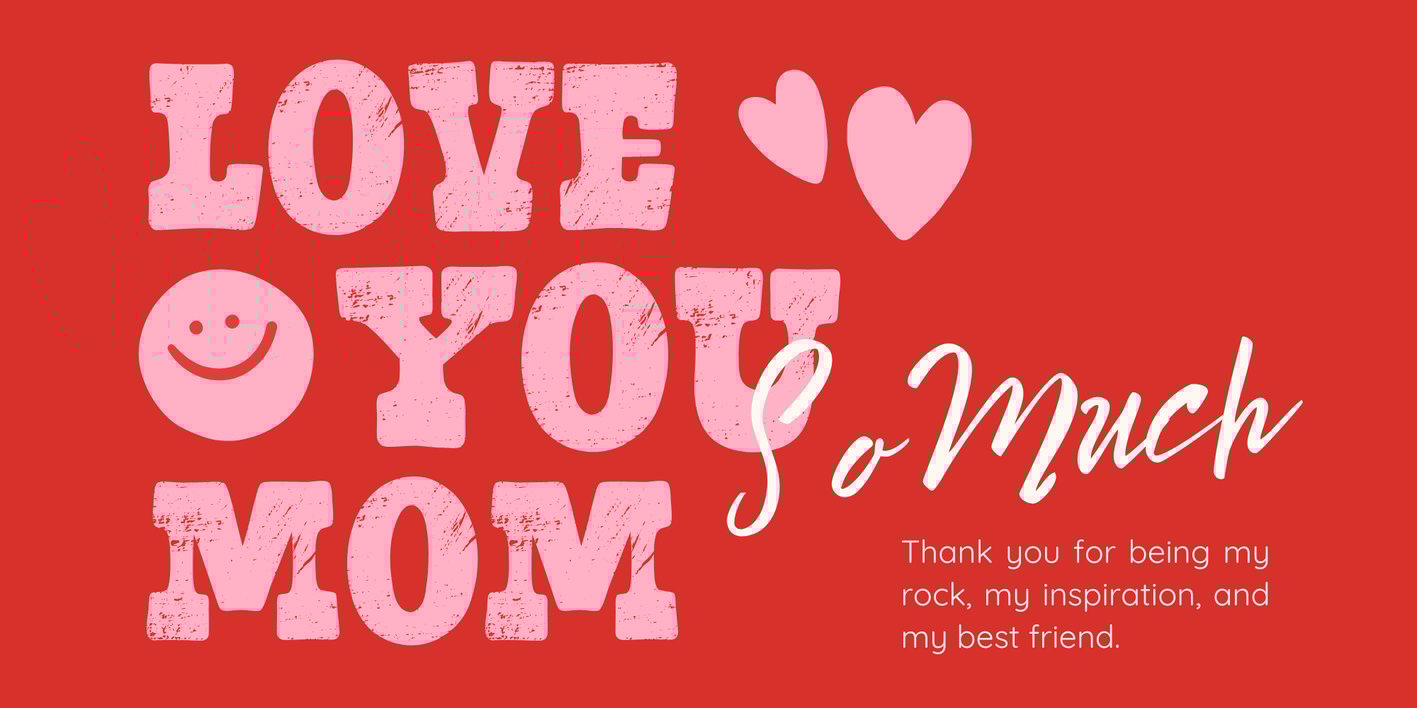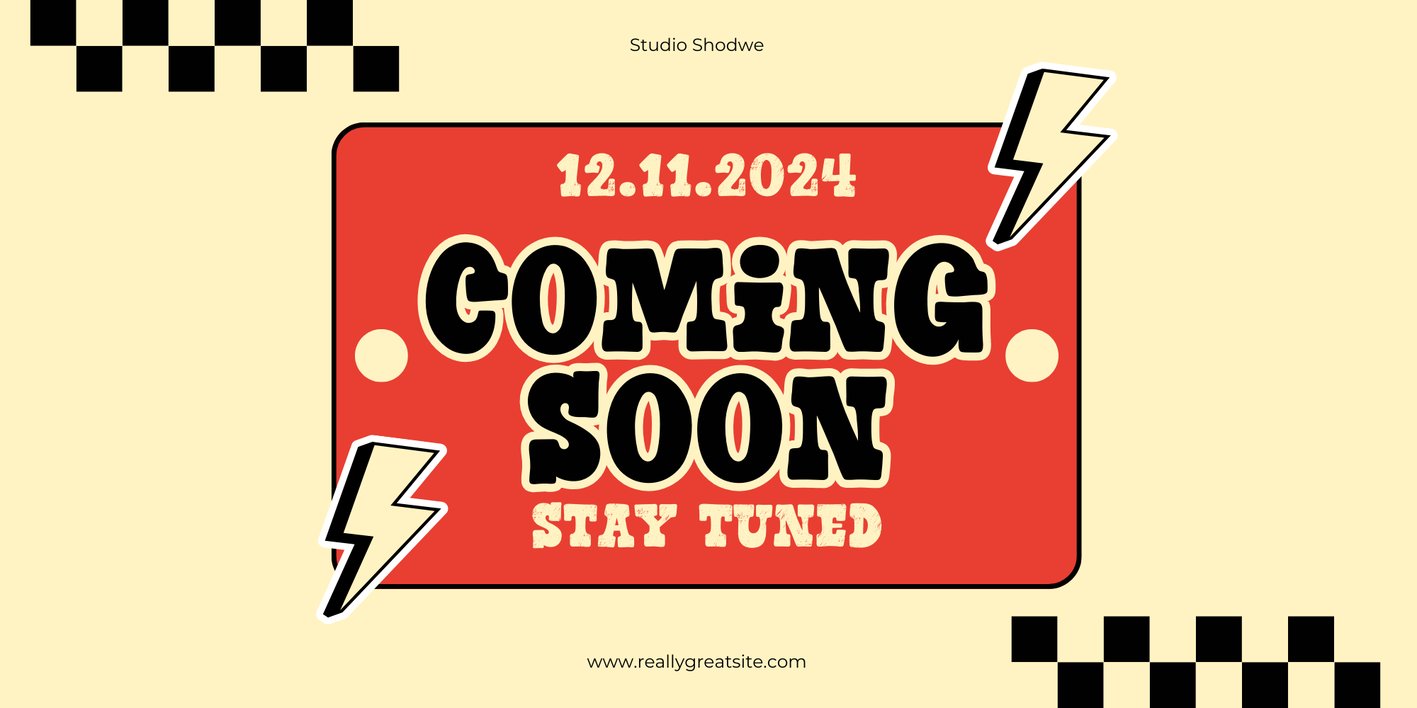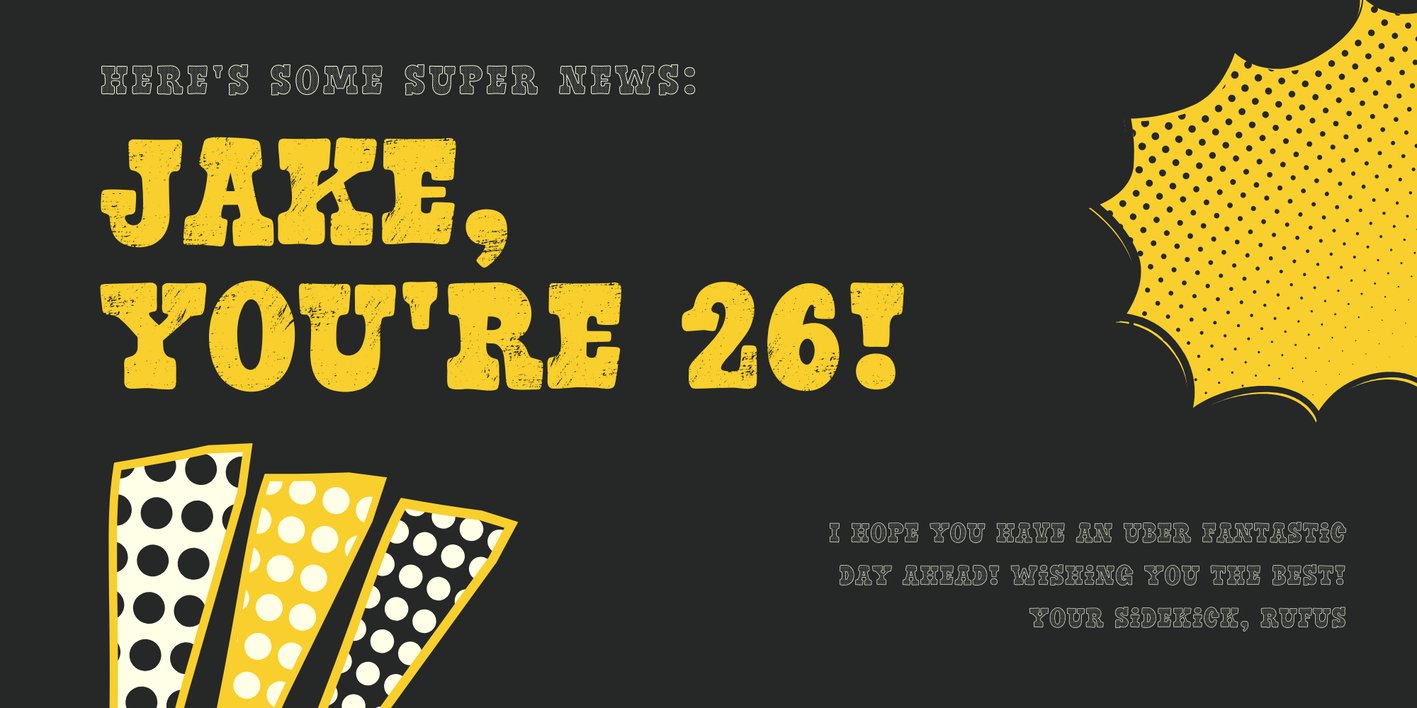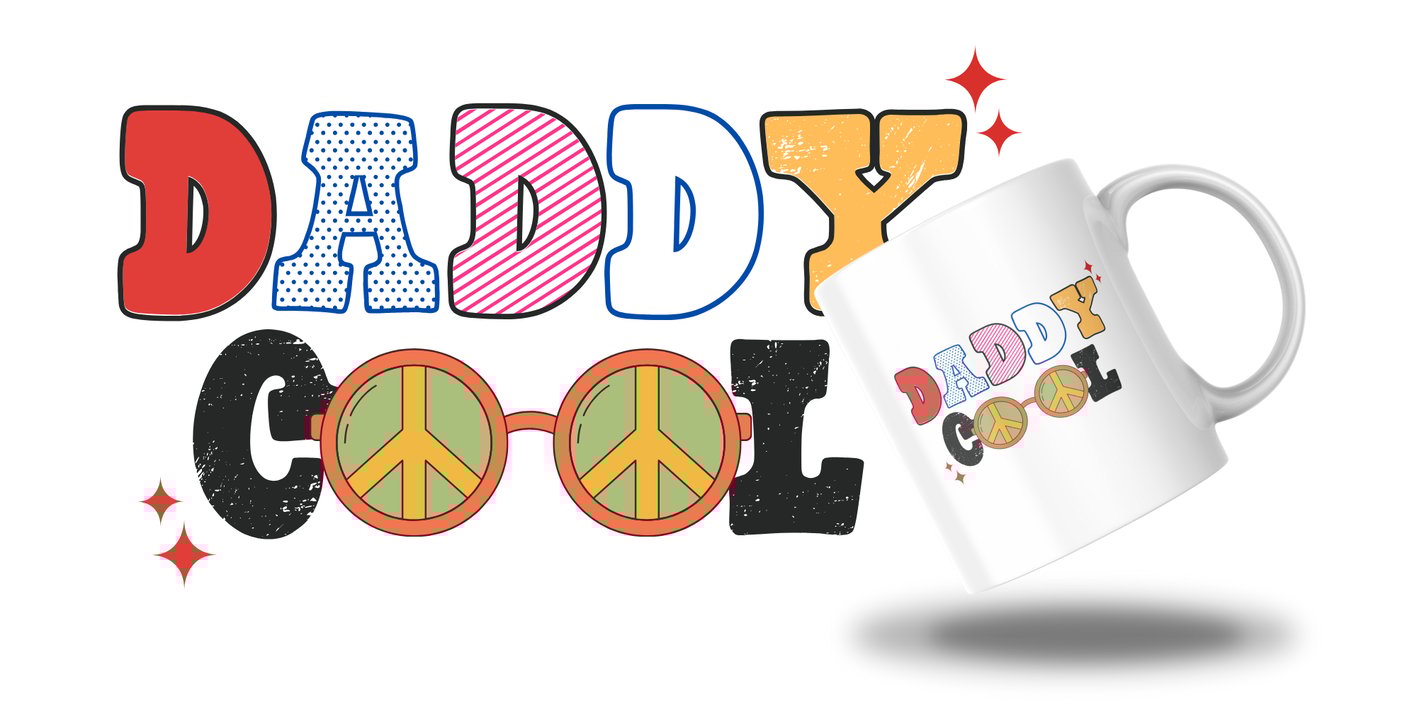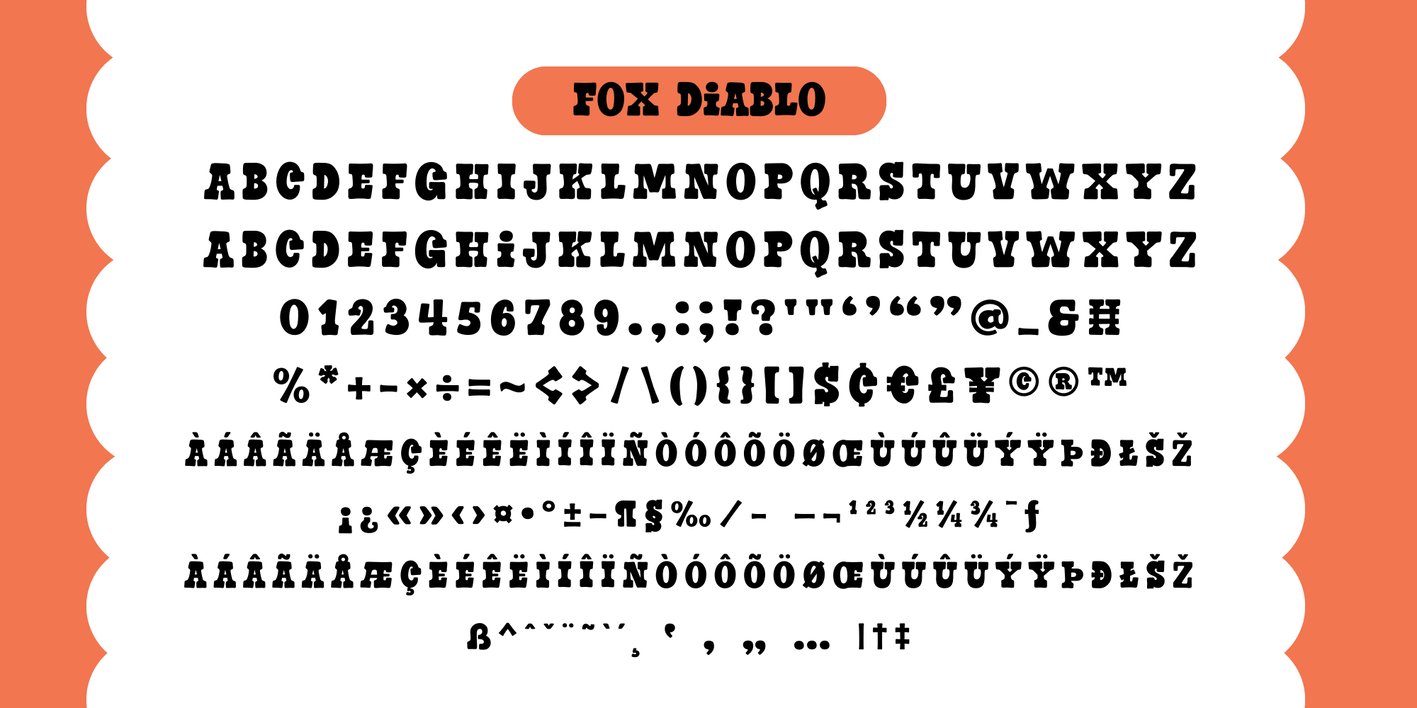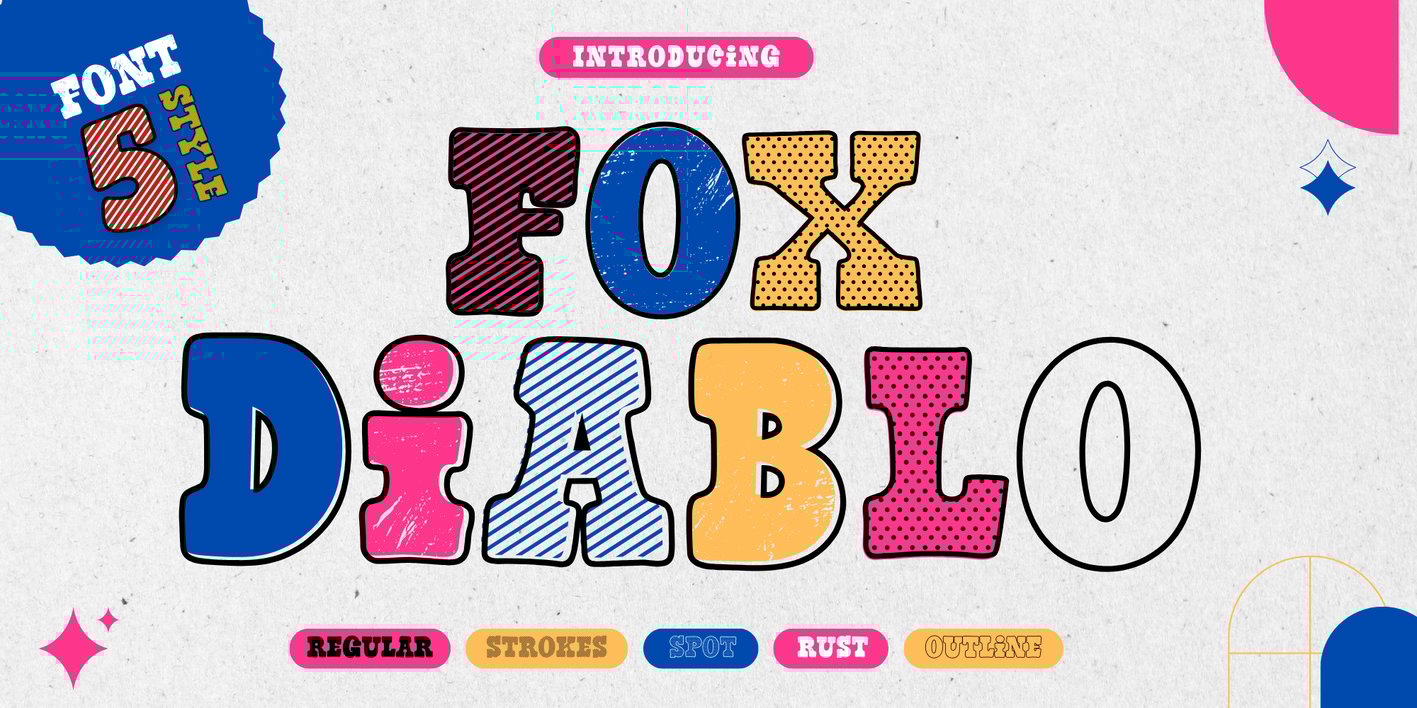
Fox Diablo is a 5 style font that cool and playful display font that adds a captivating and energetic touch to your designs. Perfect for use in publications, menus, logos, business cards, or even printed on t-shirts, these fonts exude uniqueness. Its main feature is its vibrant and expressive design, allowing you to create attention-grabbing headlines, t-shirt typography, banners, product labels, and more